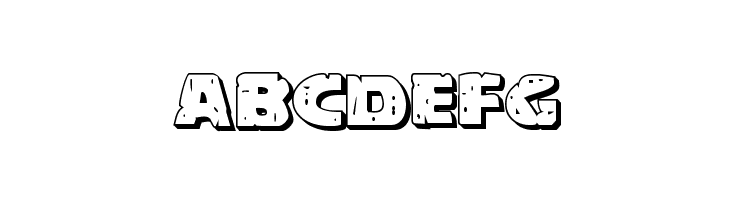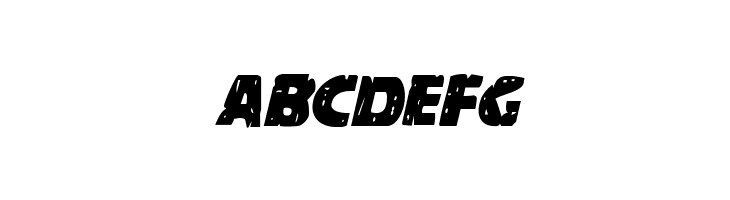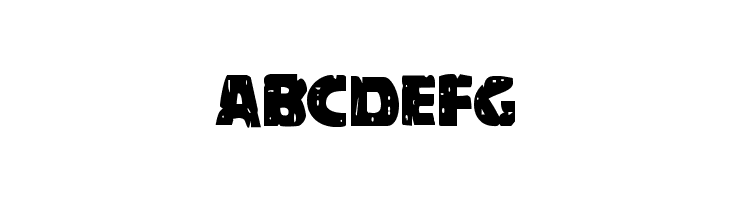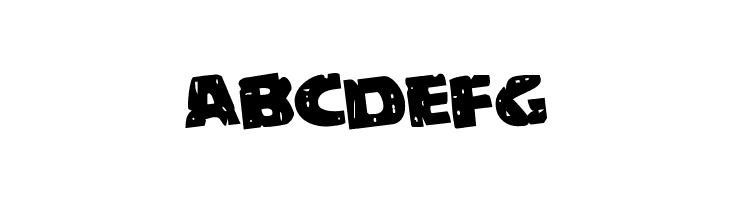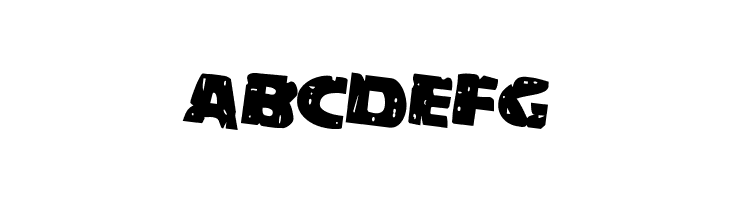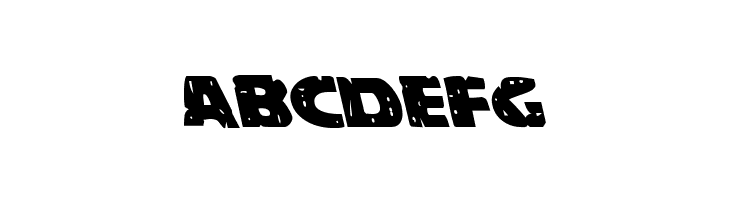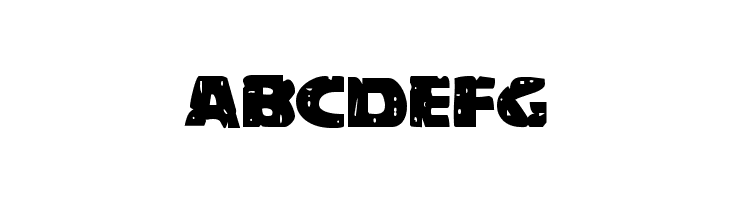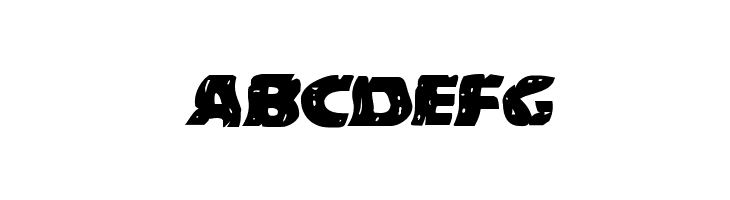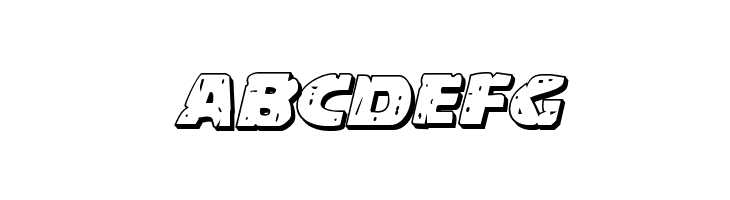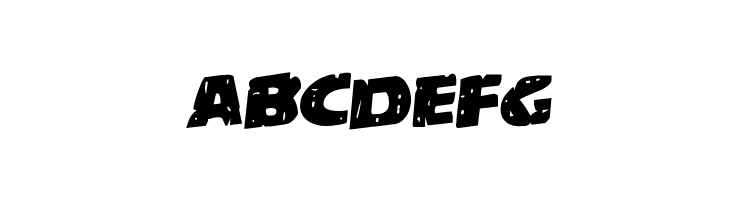
Behemuth Rotalic Font
A bold, graffiti-inspired font with dynamic and playful characters.
Behemuth Condensed Italic Font
A bold, distressed, condensed italic font with a rugged and dynamic style.
Behemuth Italic Font
A bold, italic, and decorative font with unique cut-out patterns.
Behemuth Warped Rotalic Font
A bold, warped, and dynamic font with a playful, chaotic aesthetic.
Behemuth Rotated Font
A bold, playful font with a chunky, irregular style and a slightly distressed appearance.
Behemuth Warped Font
A bold, warped font with a dynamic and artistic style.
Behemuth Expanded Font
A bold, decorative font with distressed, blocky characters for impactful designs.
Behemuth Font
A bold, distressed font with a playful and rugged aesthetic.
Behemuth 3D Font
A bold, 3D cartoon-style font with playful textures and strong outlines.
Behemuth Warped Italic Font
A bold, warped, and italicized font with a dynamic and energetic style.
Behemuth Rotated 2 Font
A bold, playful font with chunky letters and irregular cutouts.
Behemuth Expanded Italic Font
A bold, expanded, and italicized decorative font with playful cut-out patterns.
Behemuth Condensed Font
A bold, condensed font with a distressed, rugged texture.
Behemuth 3D Italic Font
A bold, 3D italic font with a playful, textured design.
Behemuth Leftalic Font
A bold, playful font with a leftward slant and unique cutout details.